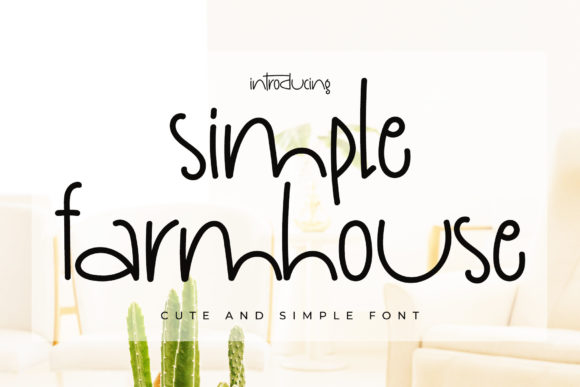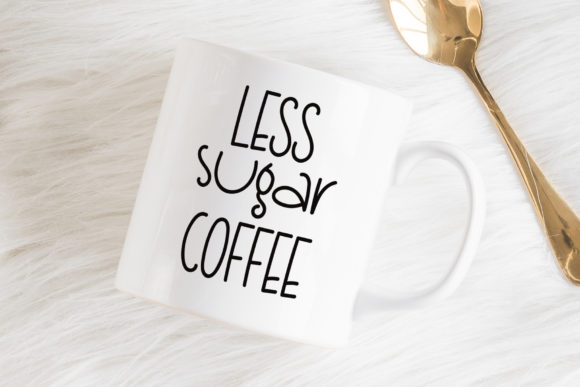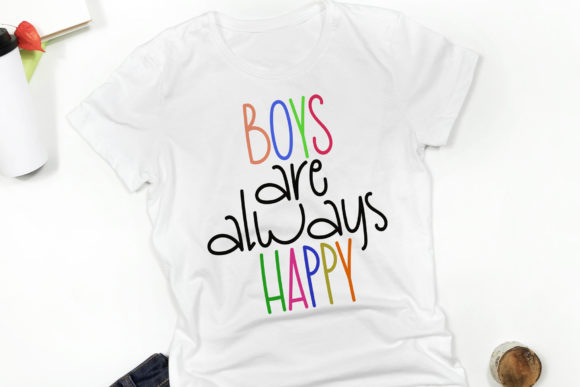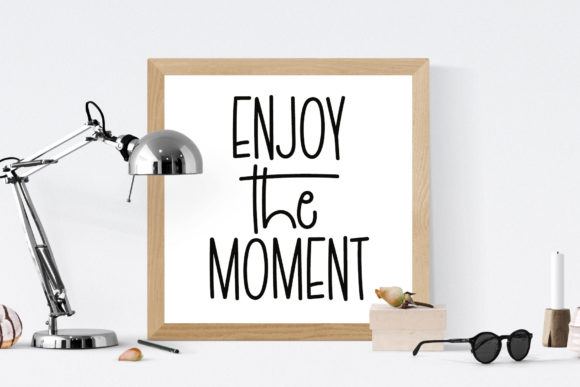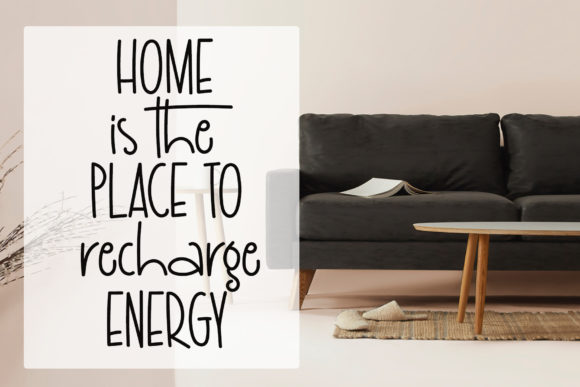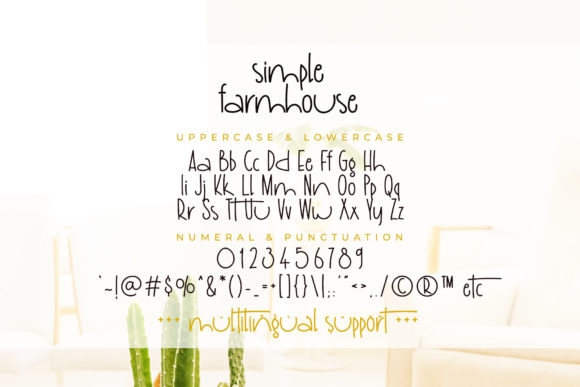
Simple Farmhouse Font
About Simple Farmhouse Font
“Simple Farmhouse” embodies a gentle and refined handwritten font, meticulously fashioned to deliver optimal outcomes. Infused with a touch of sweetness, this font radiates subtlety and charm. Its meticulous design aims for maximum impact. Upon application, it imparts an air of elegance and sophistication that gracefully enhances any design project it graces.
The intricacies of “Simple Farmhouse” reflect the attention and dedication invested in its creation. Each stroke and curve reflects a pursuit of striking the perfect balance between aesthetics and legibility. This font serves as a testament to artistic care, where every detail contributes to the overall visual experience.
The versatility of “Simple Farmhouse” shines through, as it effortlessly integrates into diverse design contexts. Whether employed in formal invitations, branding materials, editorial designs, or any creative venture seeking a touch of refinement, this font seamlessly adds a layer of class and sophistication that resonates with discerning audiences.
Incorporating “Simple Farmhouse” into your projects not only infuses them with a sense of understated elegance but also demonstrates an appreciation for the finer aspects of design. With its subtle charm, this font holds the potential to enhance the visual allure of your work, leaving a lasting impression of sophistication and craftsmanship.